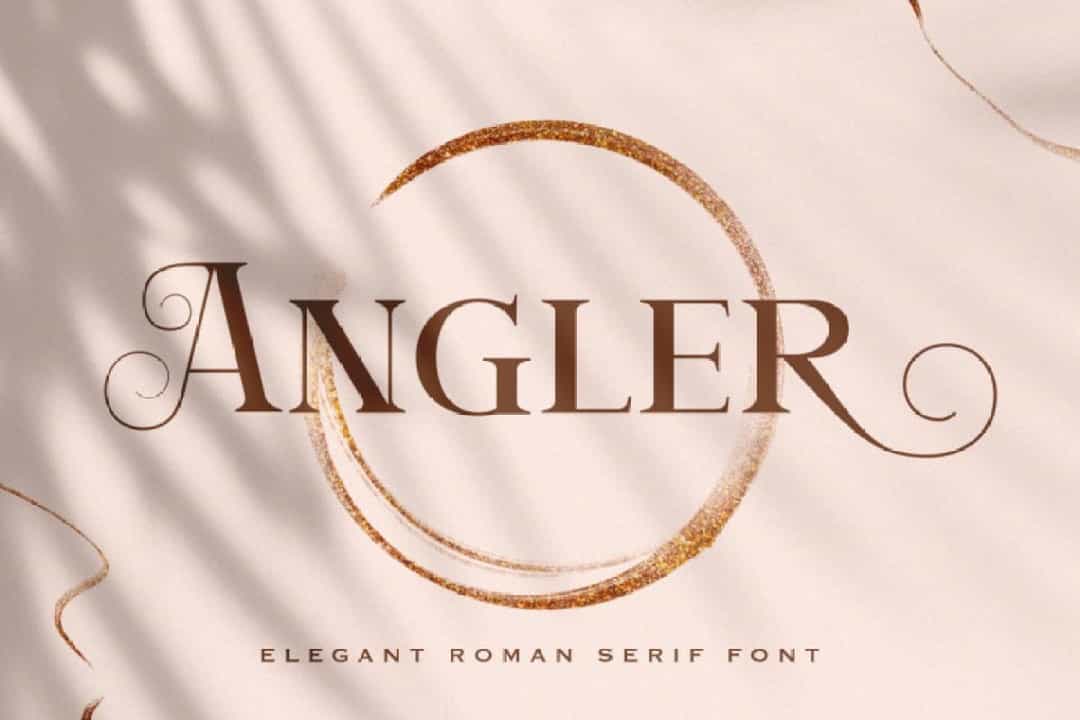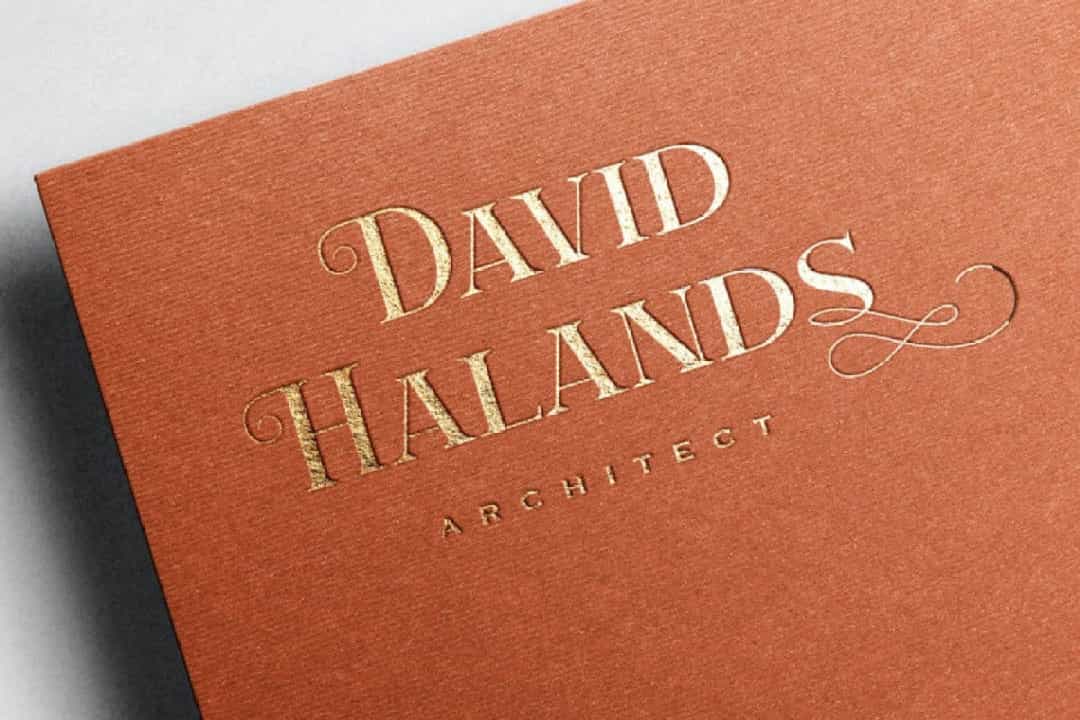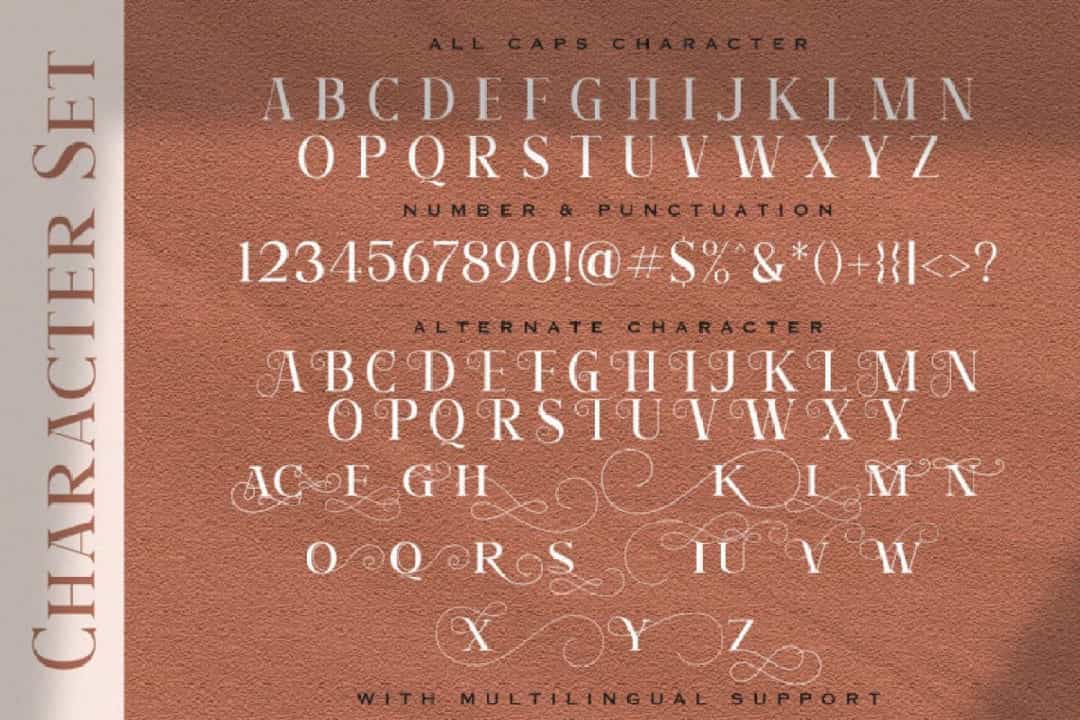
Angler Romanis is an eye-catching serif typeface, offering a classic yet modern aesthetic. A versatile font, Angler Romanis works great across numerous projects; incorporate it into your creativity today and watch how well it stands out!